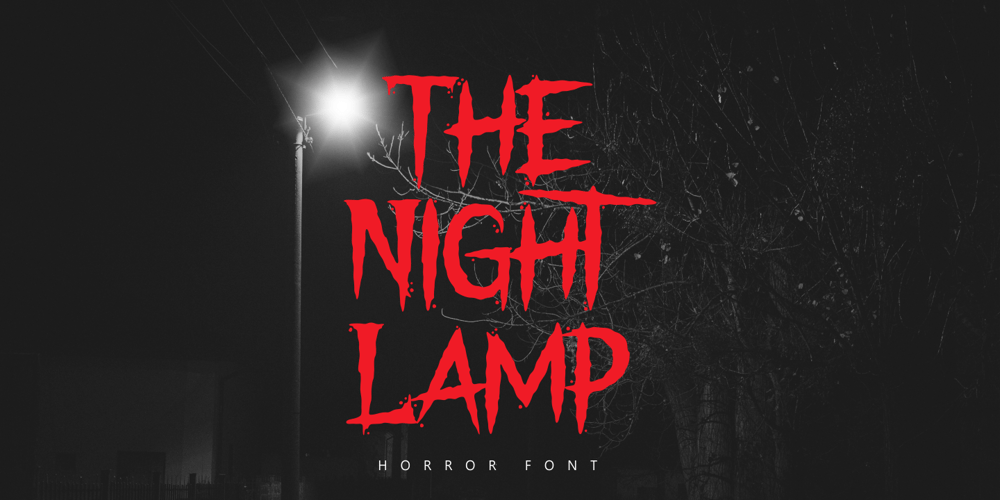
The Night Lamp Font Family was designed by Putra Novembria Candra Kusuma and published by Putracetol. The Night Lamp contains 1 styles and family package options. The Night Lamp is a horror style display font. Inspired from horror thriller movie. This font designed for Halloween, Horror, Thriller and Scary theme projects.The Night Lamp would be perfect for logo, quotes, apparel, comic, cover books, cards, posters, or anything that requires a horror or scarylook!